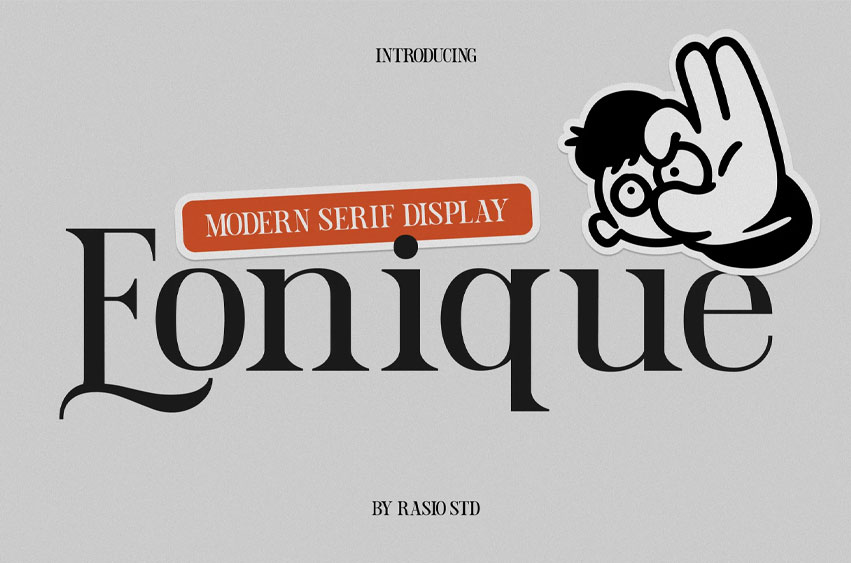
Eonique Font
Eonique Font is a modern serif display font that blends elegance with bold personality. Its refined contrast, high vertical stress, and playful curves create a distinctive look ideal for standout headlines, editorial designs, fashion branding, and expressive packaging. With both classic and quirky undertones, Eonique balances sophistication and rebellious charm—making it perfect for creatives who want to break the mold while keeping it stylish. Whether used in upscale magazine layouts, personal branding, or artistic statements, this typeface captivates with every character.